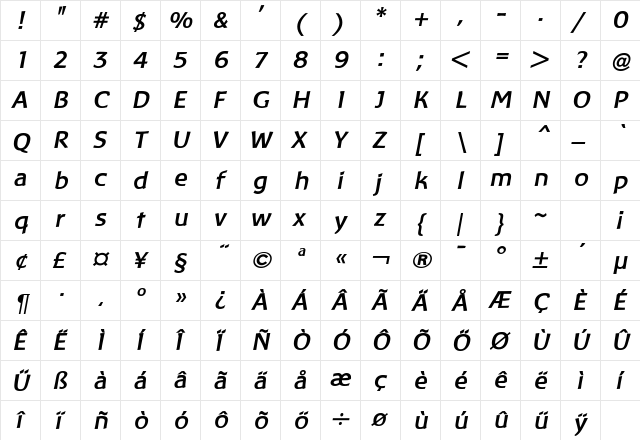
Baar Philos BoldItalic Font Preview
Baar Philos BoldItalic
Design Context for Baar Philos Typeface
Baar Philos takes a measured approach to typography — its balanced proportions and neutral character make it a reliable workhorse for both digital and print work. The dynamic lean of this cut emphasises speed and emphasis in any layout. The heavy weight commands attention and anchors typographic hierarchies.
Pro Tip: Try Baar Philos for annotation and caption copy alongside an upright companion — the contrast in angle creates a dynamic but ordered typographic system.